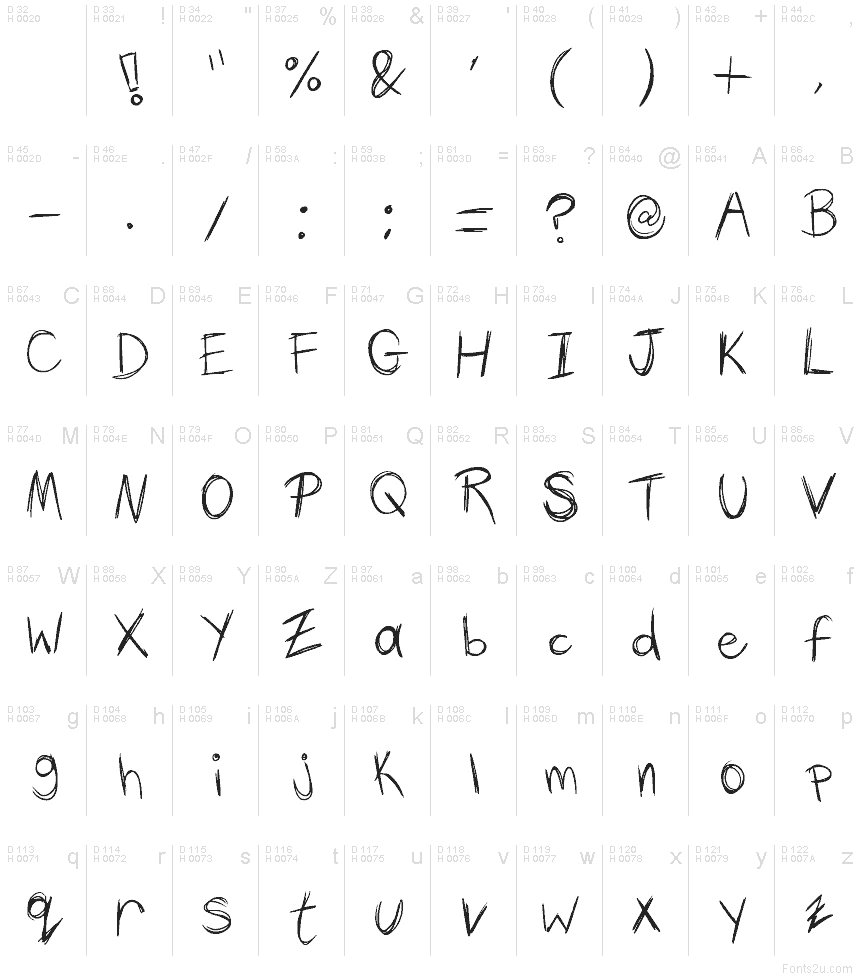
Scruf Regular
Scruf font by Yuki Ellar is a free rough trash script font. Built on wiry, overdrawn strokes that loop and scratch like a restless marker, it’s all texture and nerve. The letters breathe with irregular spacing and skittering pressure, giving headlines a raw, hand-scrawled bite without losing legibility.
Using Scruf, you get instant attitude for gig posters, zines, horror-comedy titles, skate graphics, streetwear tags, and grungy album art. The airy counters and scribbly rhythm hold up at large sizes, where the grain really sings. For balance, pair this free font with a clean grotesque for body copy, or tighten tracking slightly to intensify the tension.